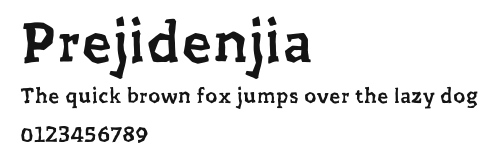
• Font Name: Prejidenjia
• Designer: Cristobal Henestrosa & Luis Novoa
• Description: Prejidenjia is a joke intended to represent the self-proclamed legitimate president of Mexico, Andres Manuel Lopez Obrador. This font is a parody of Presidencia, designed by Gabriel Martinez Meave for the Presidency of Mexico.